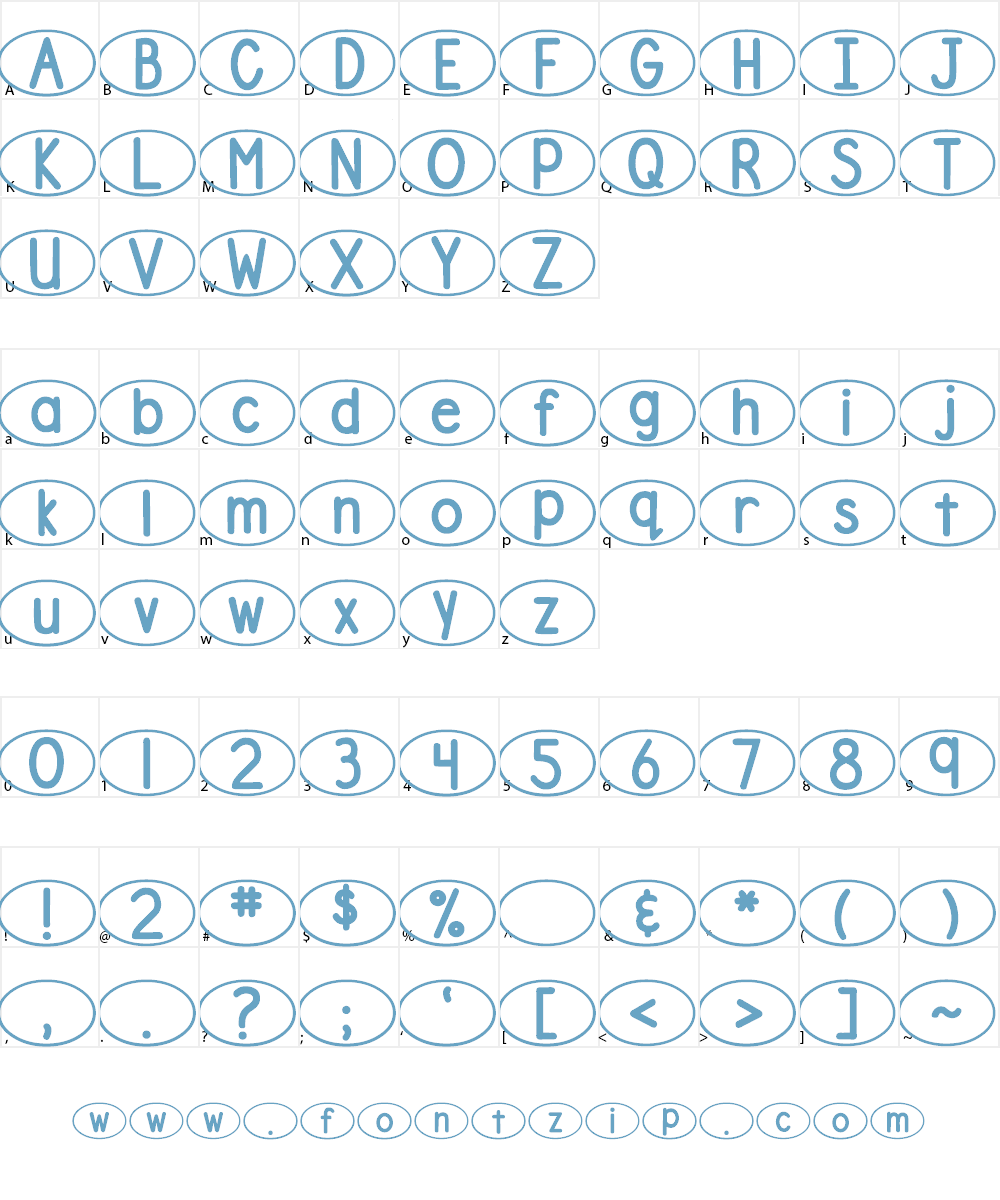
A font dedicated to teachers everywhere - create practice test sheets to get ready for standardized testing season. Font contains A-z, 0-9, most common punctuation characters as well as a few 'test taking ovals'.